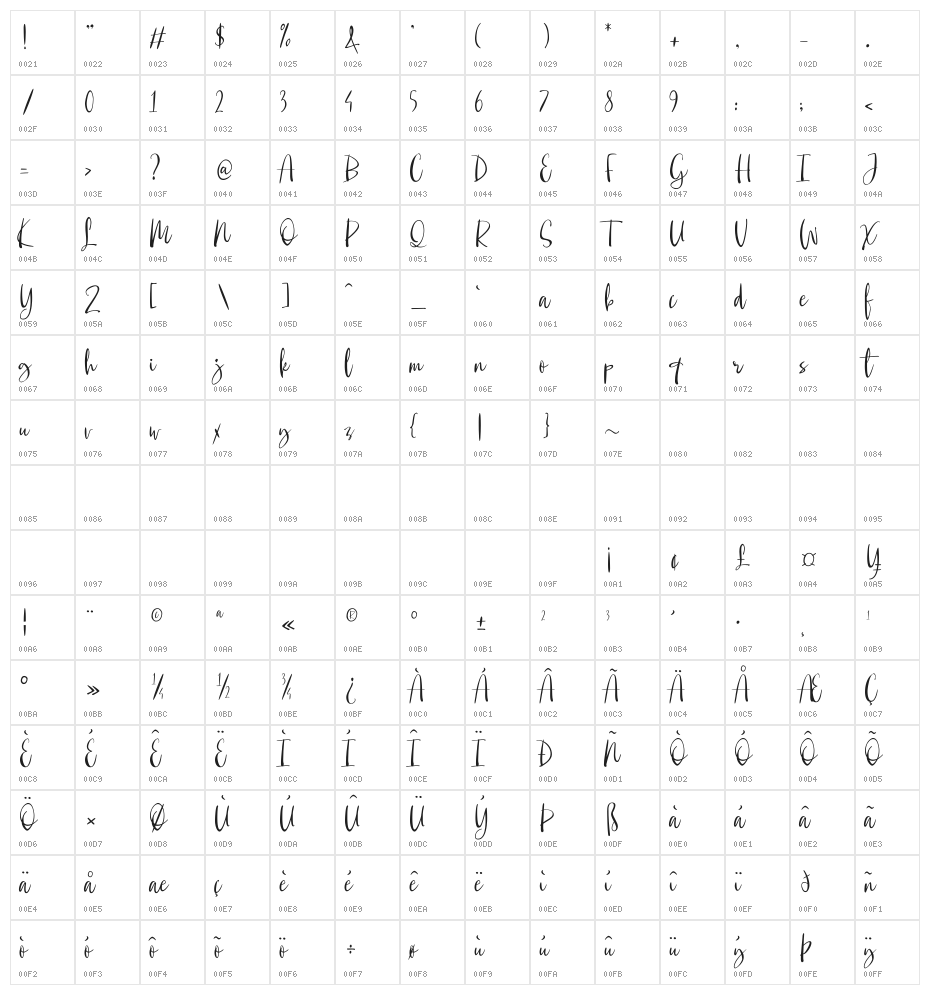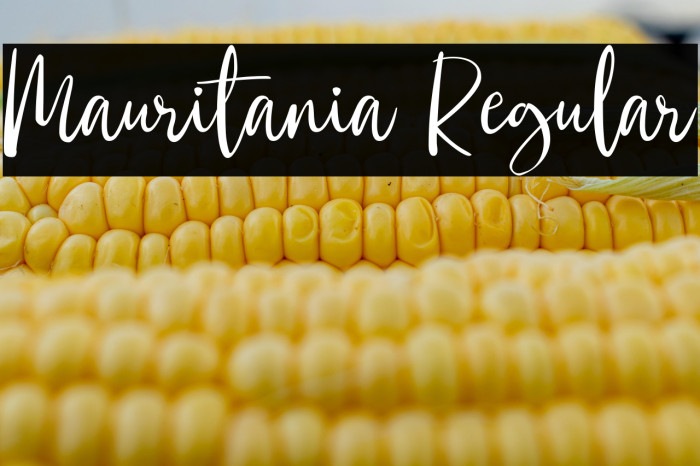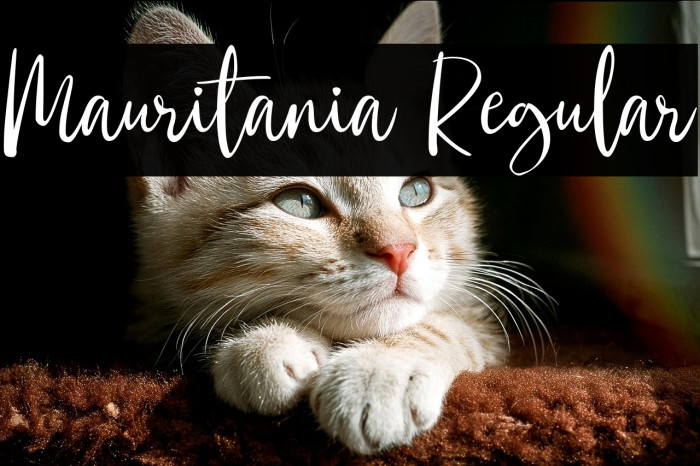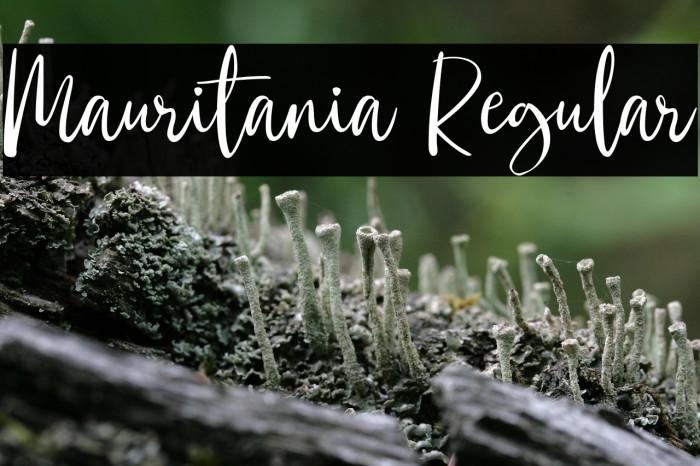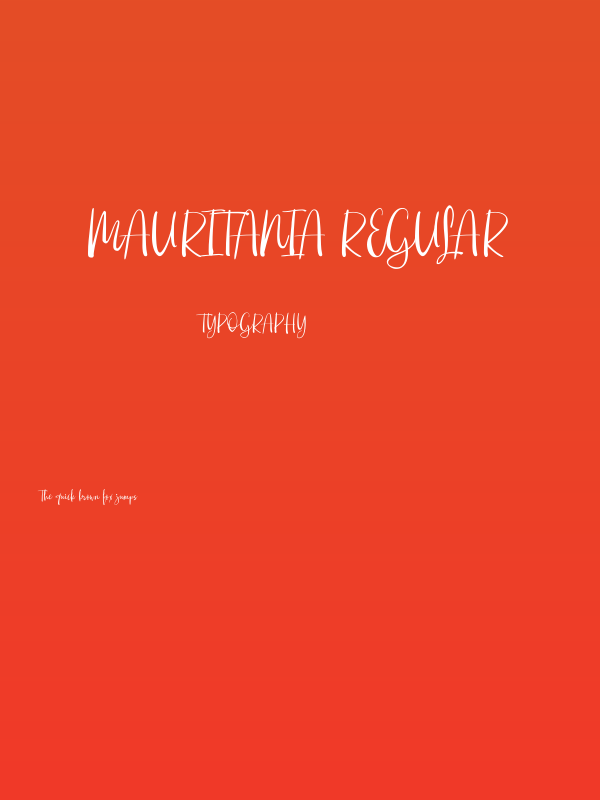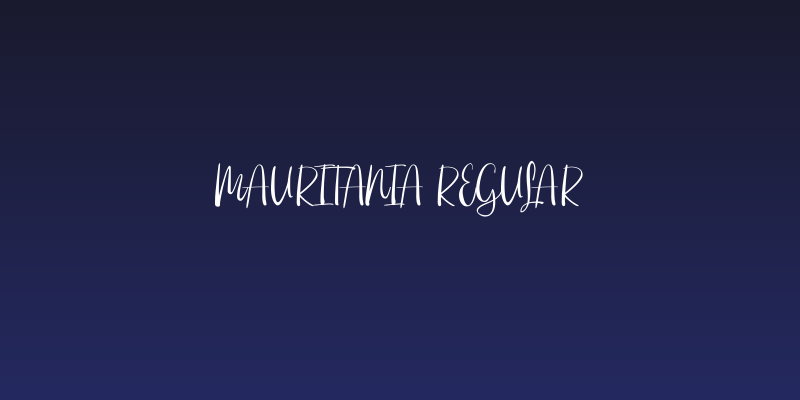
Mauritania Regular Font
Mauritania Regular Description
This font features a lively and expressive handwritten style, characterized by its fluid and dynamic strokes. The uppercase letters are bold and slightly elongated, giving a sense of movement and energy. The lowercase letters maintain a consistent flow, with some letters featuring playful loops and curves. The numerals are clear and maintain the same energetic style, making them easily readable. Special characters are creatively integrated, adding to the font's overall charm. This font is perfect for projects that require a personal and artistic touch.
| Proposed Projects | Ideal for greeting cards, invitations, personal branding, and artistic projects. |